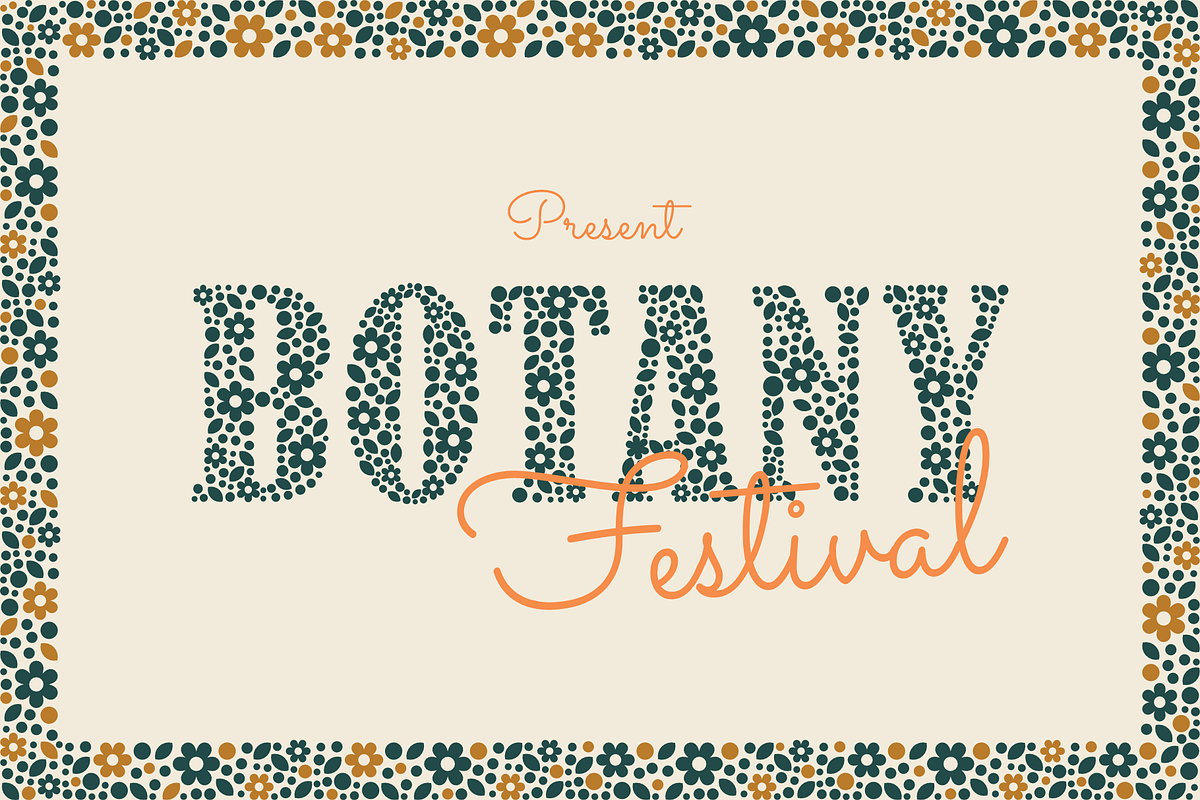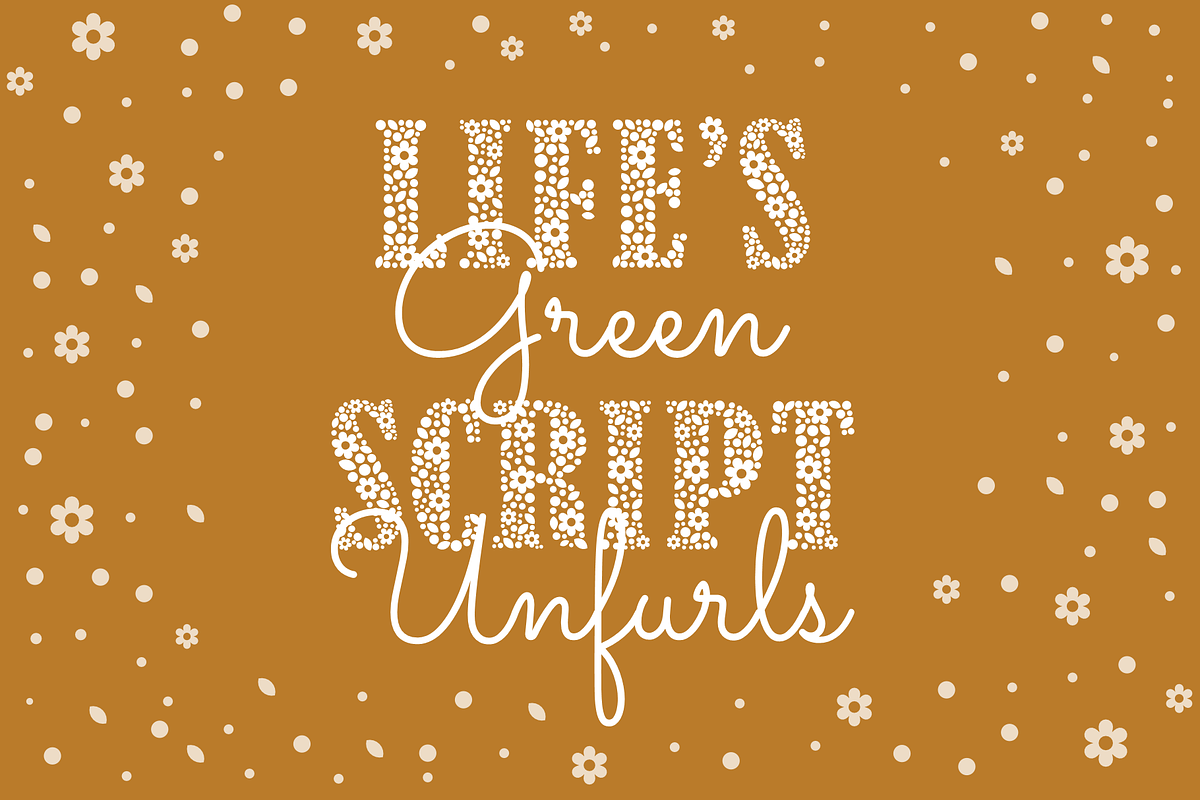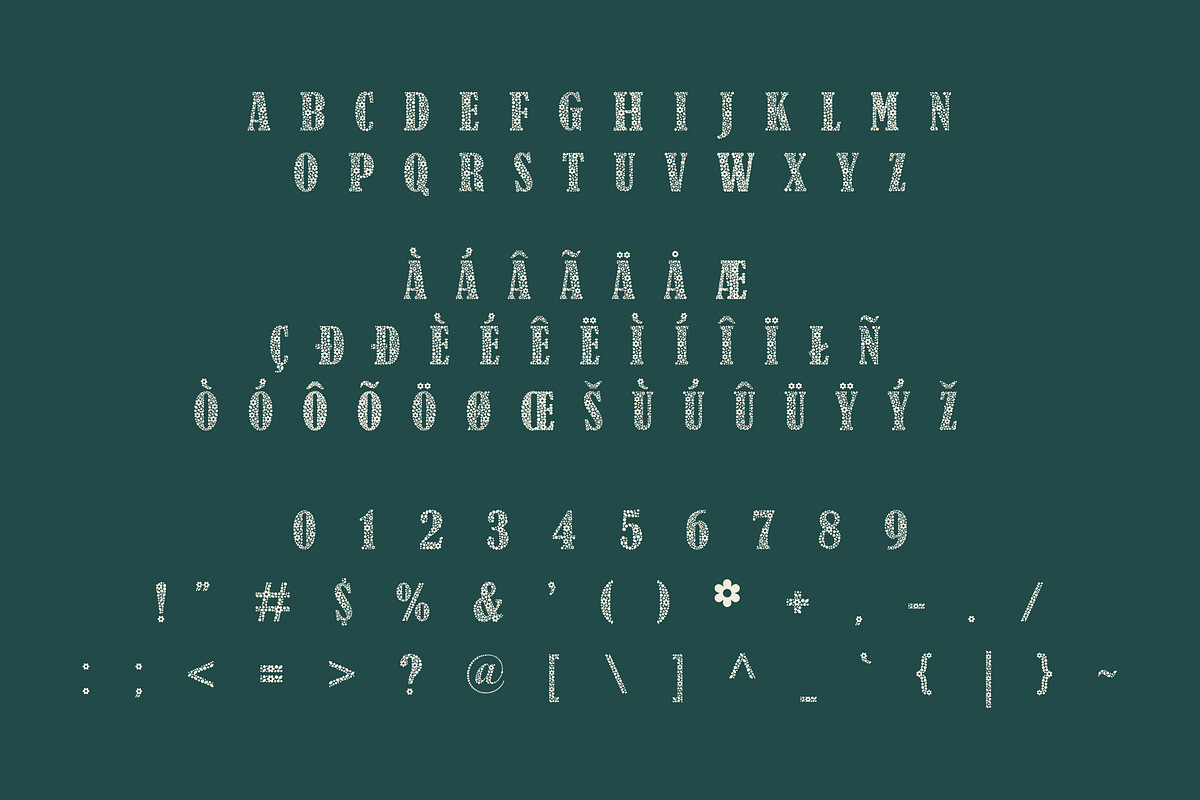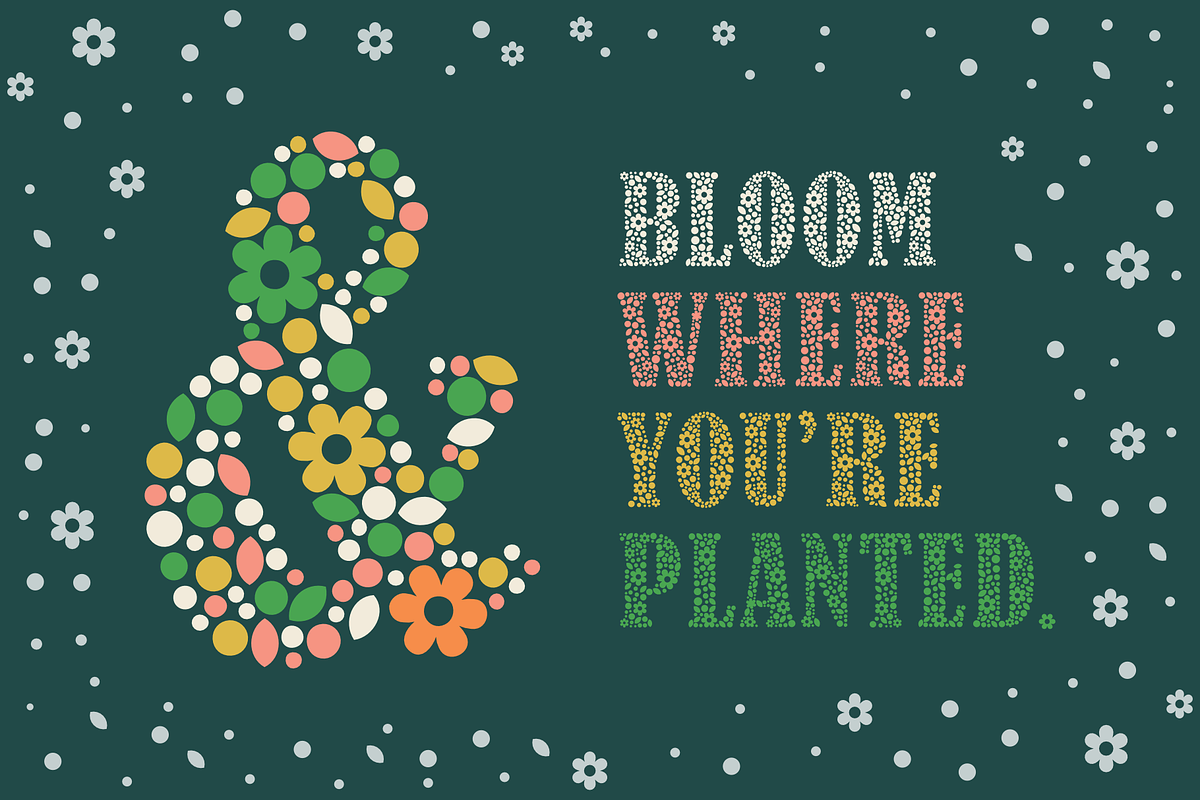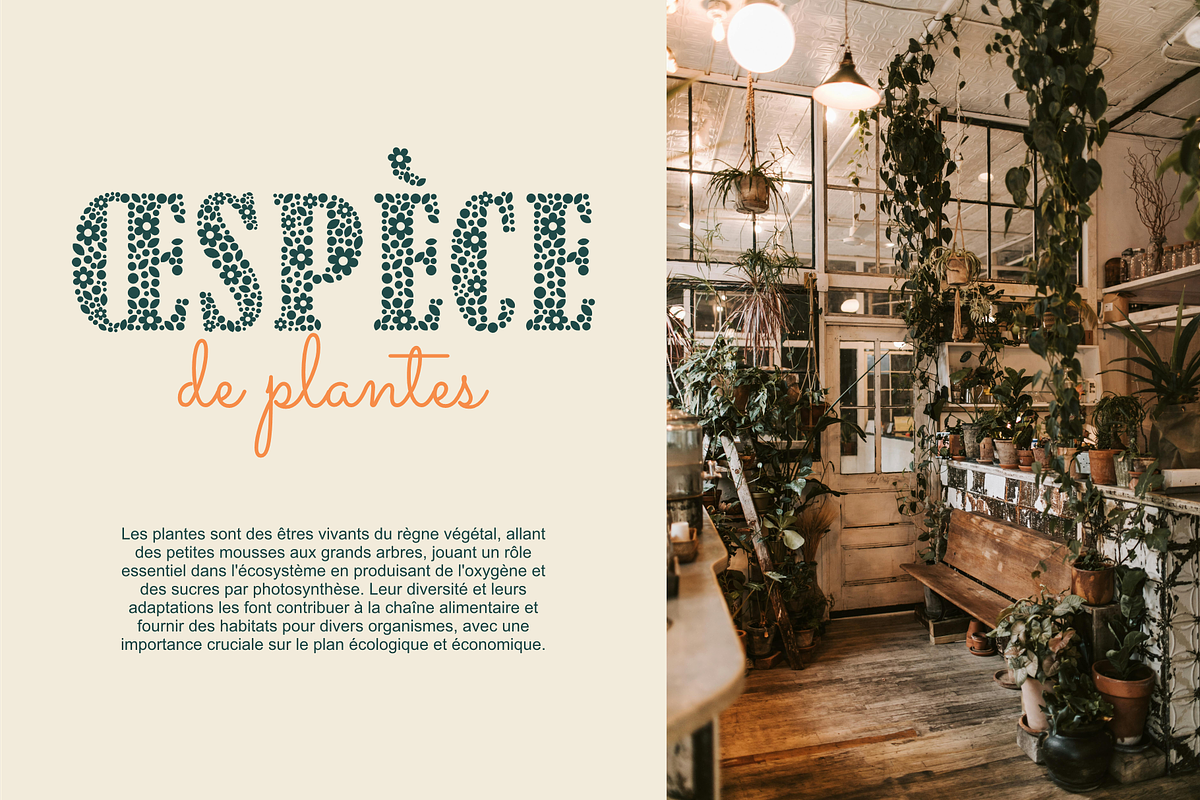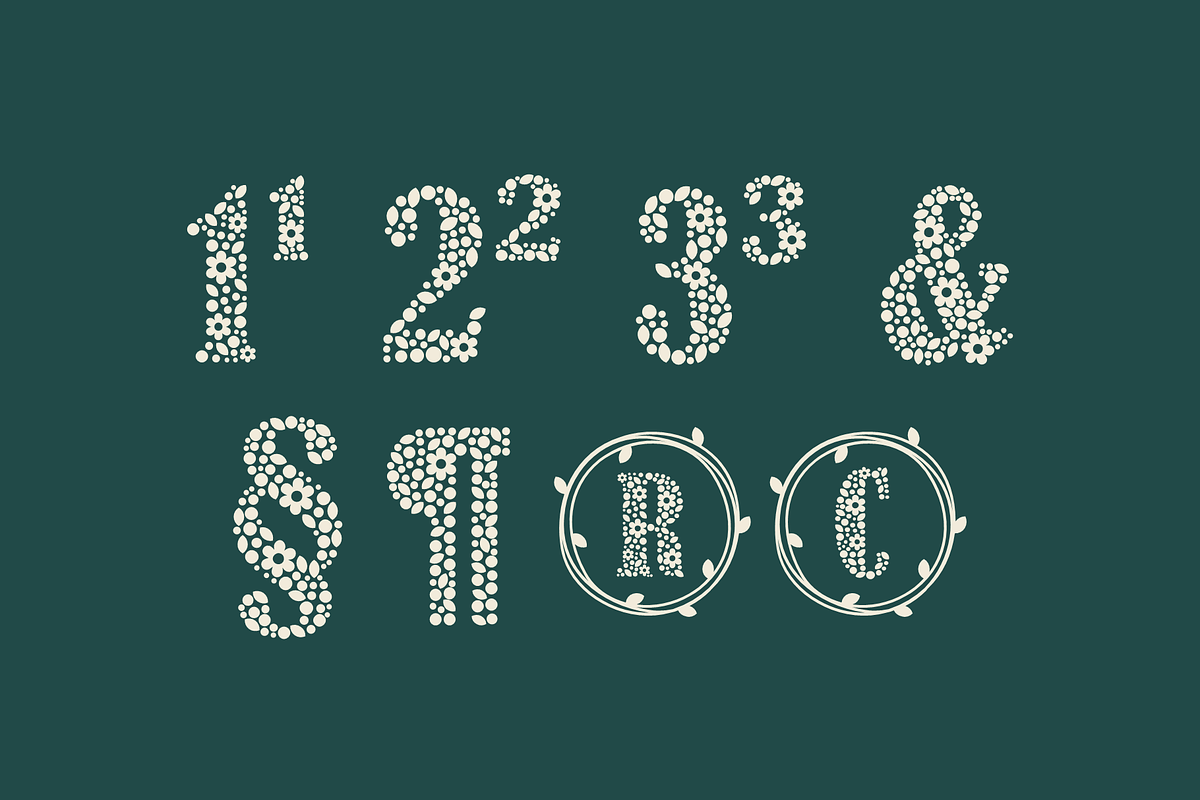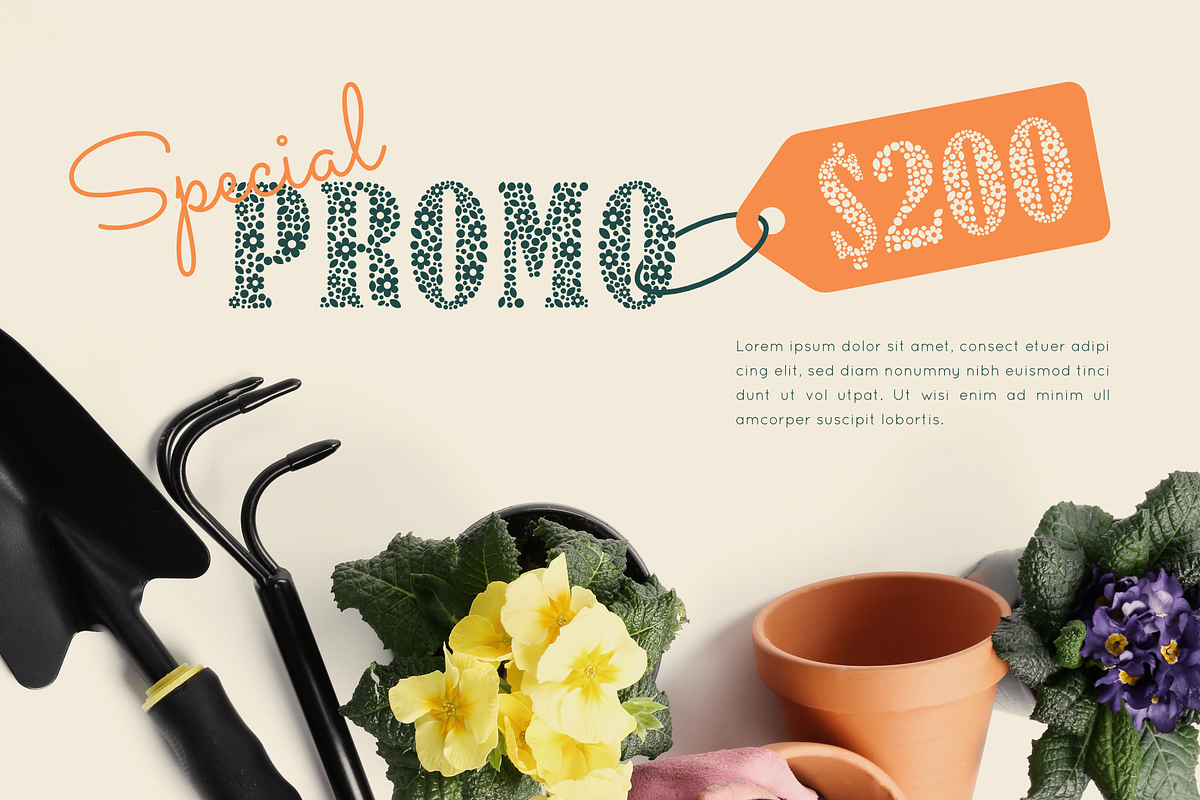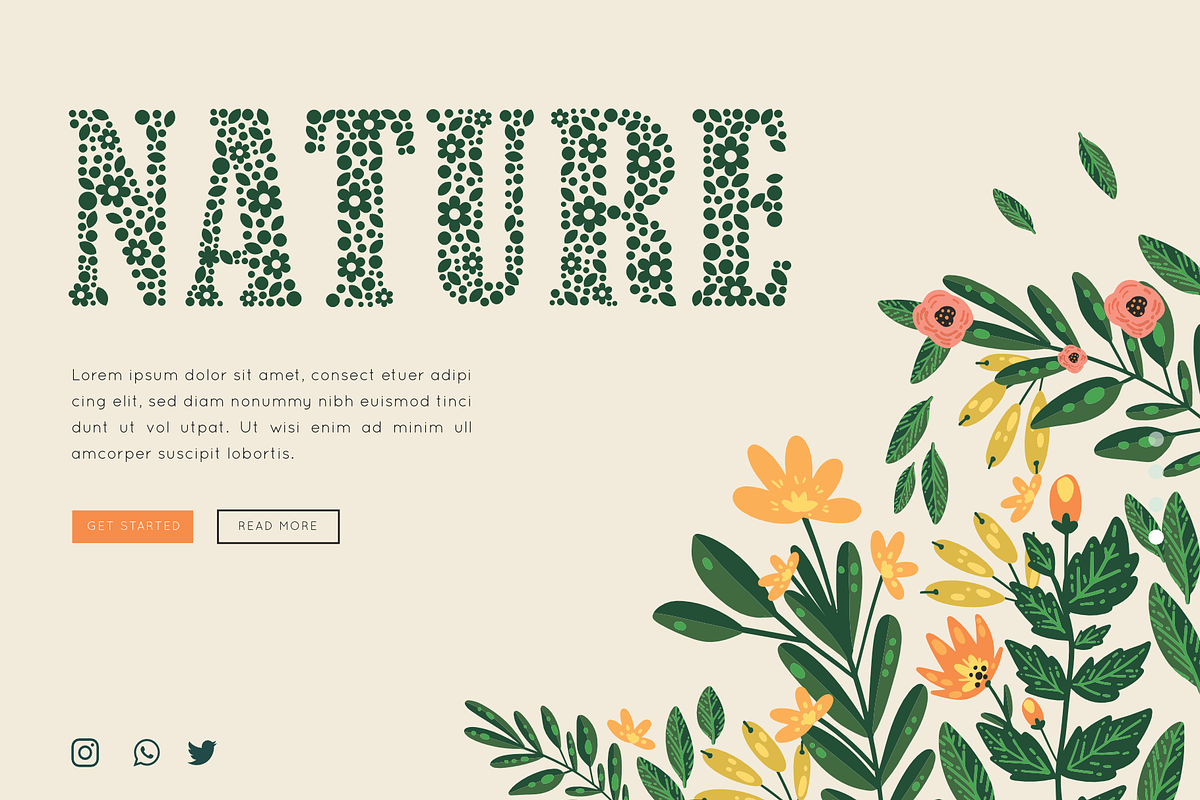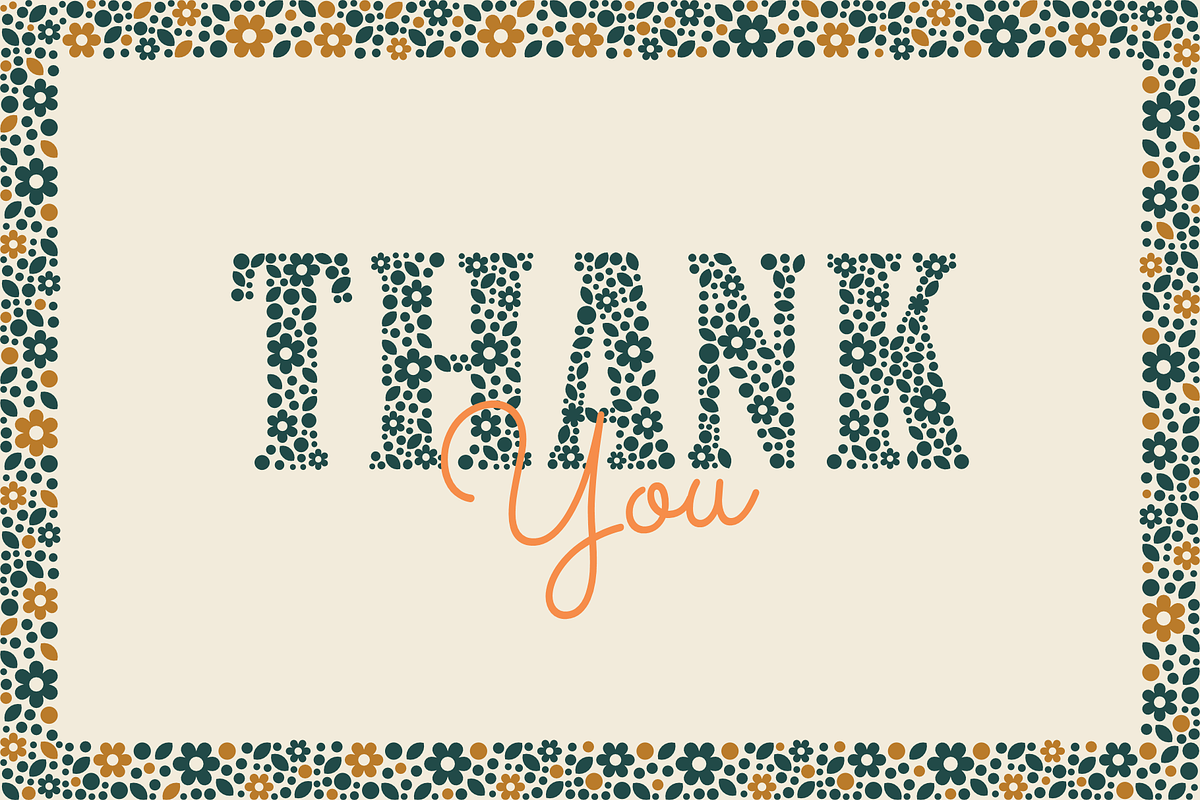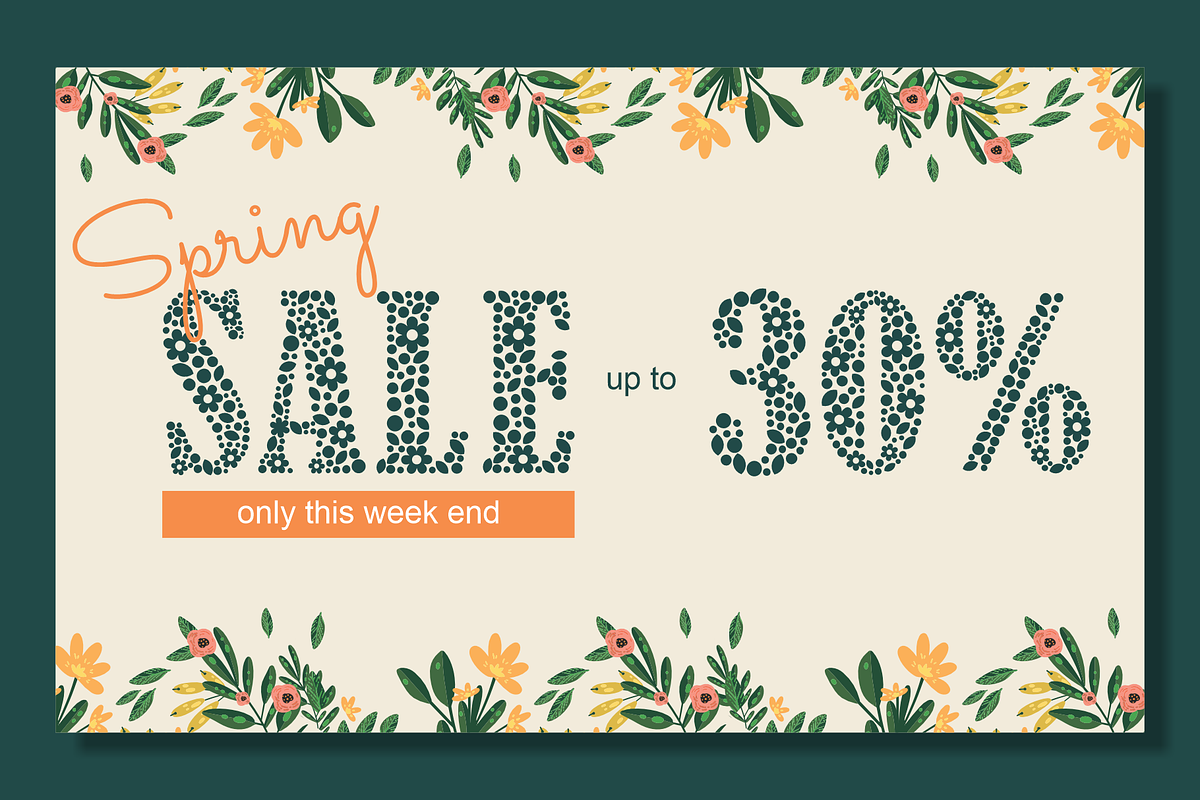
Botany Festival
Botany Festival is a unique serif font inspired by nature's beauty, shaped with elements of leaves and flowers. The elegant serifs and organic details create an artistic and memorable text appearance, perfect for projects related to nature, botany, or festivals celebrating the beauty of the natural world.